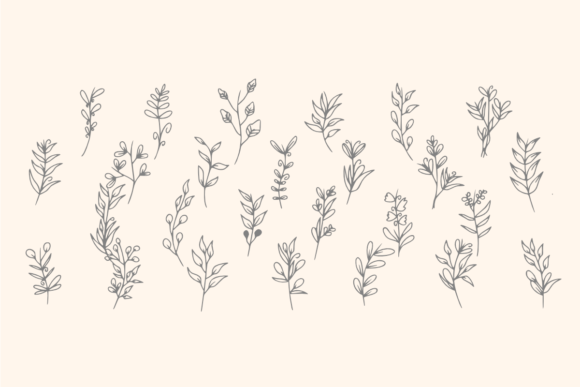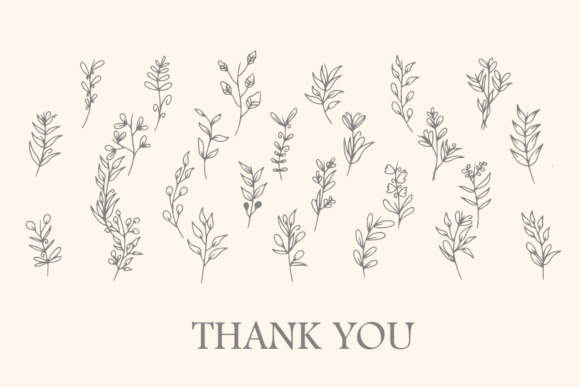
Introduction to Herbalist Font
Have you ever sat in a lush forest, surrounded by vibrant wildflowers, and felt the creative spark ignite within you? As designers, we’re always on the lookout for that perfect element to elevate our projects. And that’s exactly where the enchanting Herbalist Font comes in – a high-quality, free download that’s sure to transport your creative project to a world of whimsy and wonder.
With its hand-drawn style and delicate foliage, the Herbalist Font is a design resource that’s as versatile as it is charming. Whether you’re working on a brochure for a botanical garden or creating a whimsical children’s book, this font is sure to bring a touch of magic to your design. Plus, with a transparent background, you can easily layer it with other elements to create a truly unique look.
Key Features of Herbalist Font
- High-quality, hand-drawn design suitable for creative projects and publications.
- Features a transparent background, allowing for easy integration into various design elements.
- Includes 6 font styles with varying weights and line art, providing versatility for diverse design applications.
- Designed with a clean and elegant aesthetic, perfect for branding, packaging, and editorial design projects.
Honest Review: Herbalist Font
I recently had the chance to work with the Herbalist Font, and I must say it’s a great addition to my design resource library. The font is free to download, making it a fantastic option for creative projects on a budget.
One of the things that really stands out about the Herbalist Font is its high quality. The design is elegant and sophisticated, making it perfect for a variety of applications. I particularly appreciate the transparent background, which allows for seamless integration with other design elements.
What works well: ✨ Easy to read, even in small font sizes; ✨ Versatile and suitable for a range of creative projects; ✨ Free to download, making it a great value for designers.
Limitations: ⚠️ Limited character set, which may be a concern for designers who need to work with non-English text; ⚠️ May not be suitable for use as a headline font due to its relatively small character set.
Overall, I’m impressed with the Herbalist Font. While it may not be perfect, its strengths make it a valuable design resource. If you’re looking for a high-quality font for your creative project, the Herbalist Font is definitely worth checking out.
To get the most out of the Herbalist Font, experiment with different font sizes and styles to create visually appealing combinations. You can also pair the font with other design resources to create a cohesive and high-quality design.
The Herbalist Font is ideal for a variety of creative projects, including wedding invitations, branding materials, and marketing graphics. Its elegant and sophisticated design makes it perfect for creating high-quality designs that are sure to impress.